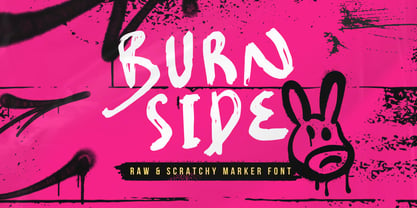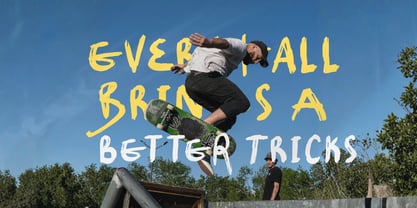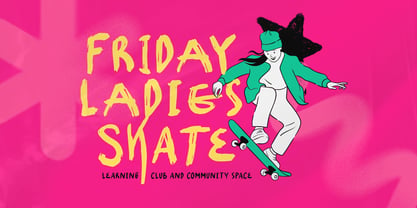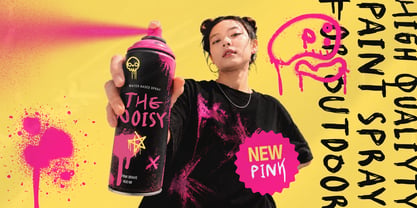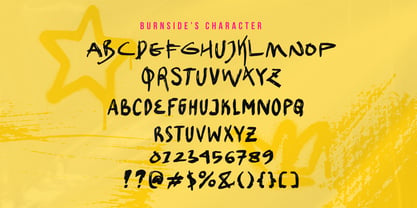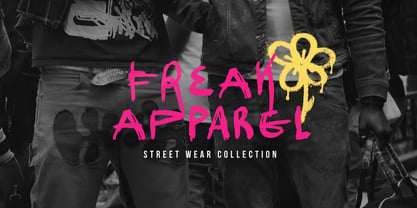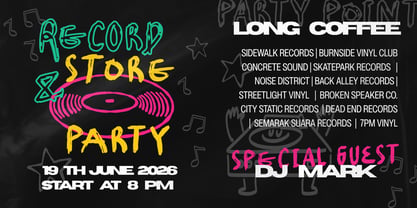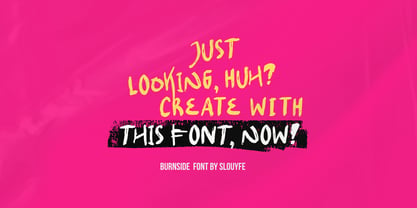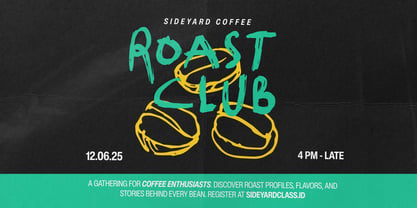
Burnside
by Sloulyfe Studio
The Burnside Font Family was designed by Amelia Dian Isnaini and published by Sloulyfe Studio. Burnside contains 1 styles. More about this family
Burn Side is loud, raw, and impossible to ignore. Inspired by urban street art, rough marker tags, and creative chaos, this font delivers bold personality in every letter. The scratchy details and imperfect forms create an authentic handmade look, making it a great choice for music posters, album covers, skate graphics, stickers, branding, and projects that demand a fearless, energetic, and rebellious vibe.
Designers: Amelia Dian Isnaini
Foundry: Sloulyfe Studio